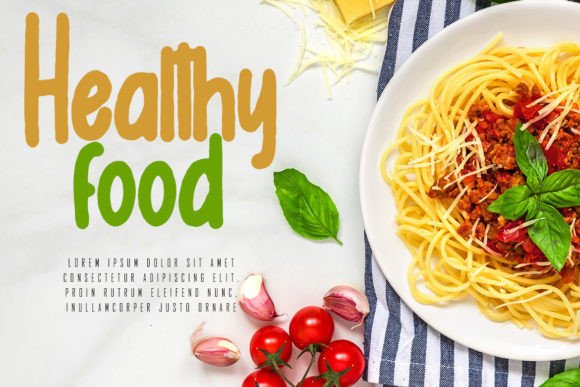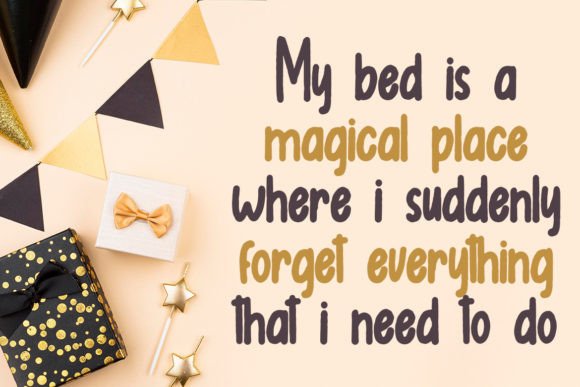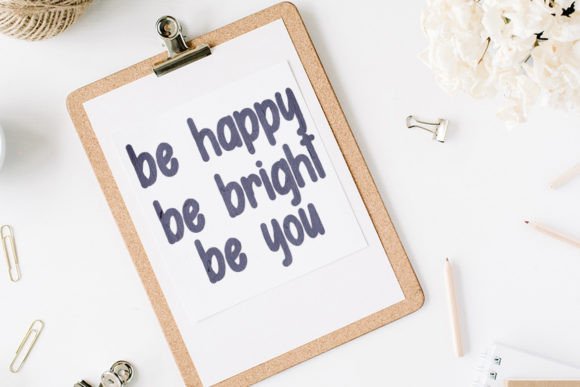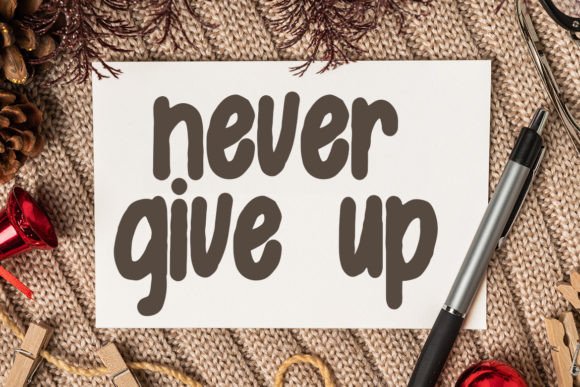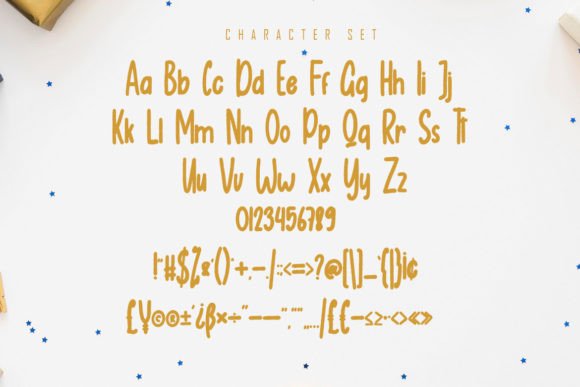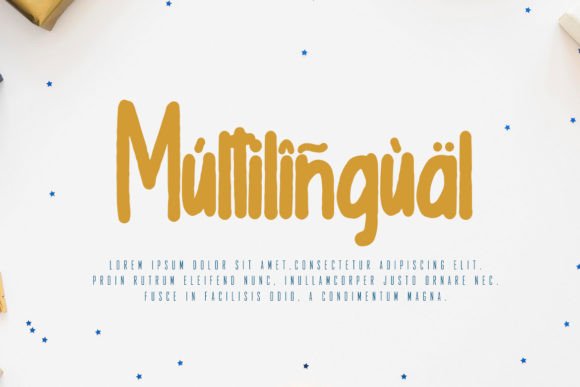
Introduction to Orenhead Font
Orenhead is a playful and cool display font.
This font is perfect for children-themed designs, especially when combined with bright colors .
Key Features of Orenhead Font
Why Choose Orenhead Font?